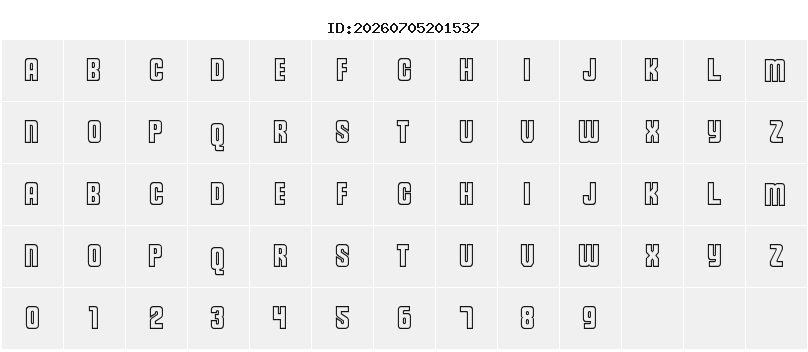
• Font Name: Diskun
• Font Style: Diskun
• Full Font Name: Diskun
• PostScript Name: Diskun
• Character Count: 89
• Description: This is Diskun: The font used on the Family Computer's Disk System logo. Diskun (also named Mr. Disk) is the official mascot of this system.
Diskun.ttf is a modern, elegant sans-serif font designed for ultimate readability and visual harmony. Perfect for branding, headlines, web design, and print materials.